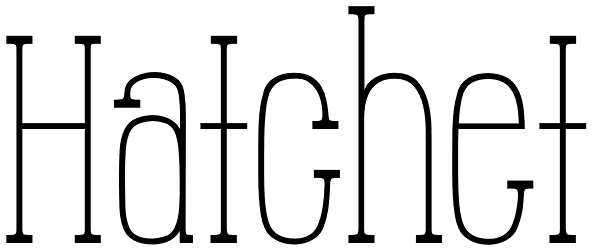
Hatchet
The font design was developed while completing my final year at College. The end result is a mixture of a slab serif and a sans-serif.
Hatchet Font